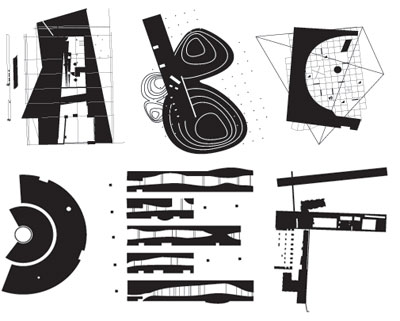
'koolhand' typeface inspired by rem koolhaas
typography is an ever-evolving section of design which produces a number of experimental designs. these avant-garde typefaces take inspiration from various themes ranging from animals to toothpaste. ‘koolhand’ is a new type face which takes its form from the architectural works of rem koolhaas. the typeface is designed by fwis and art directed by chris papasadero. he is aiming to design a font a day for the month of january and is posting them on his website. while the letters in ‘koolhand’ aren’t really designed for legibility, papasadero envisions them for textural treatments.